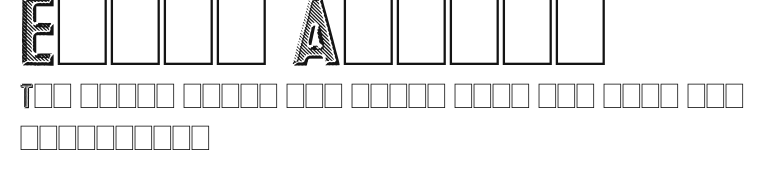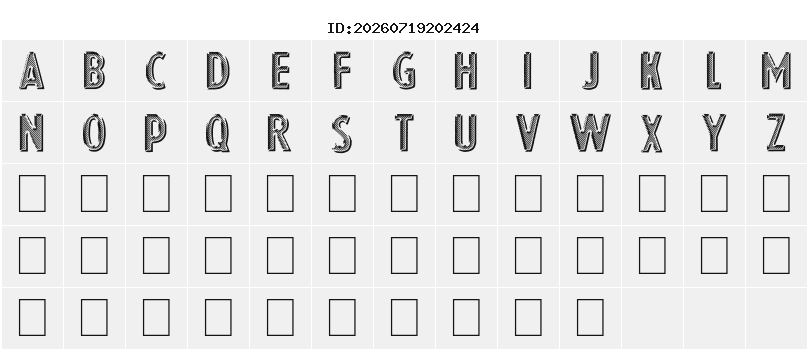
• Font Name: Eshop Advert
• Designer: Imagex
About Eshop Advert.ttf
Eshop Advert.ttf is a modern, elegant sans-serif font designed for ultimate readability and visual harmony. Perfect for branding, headlines, web design, and print materials.